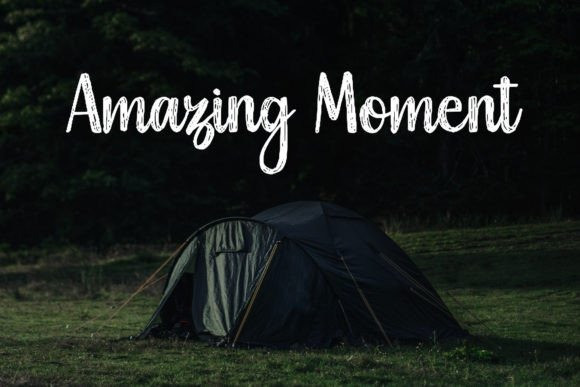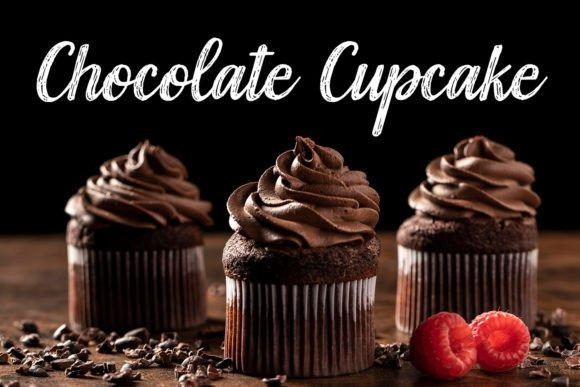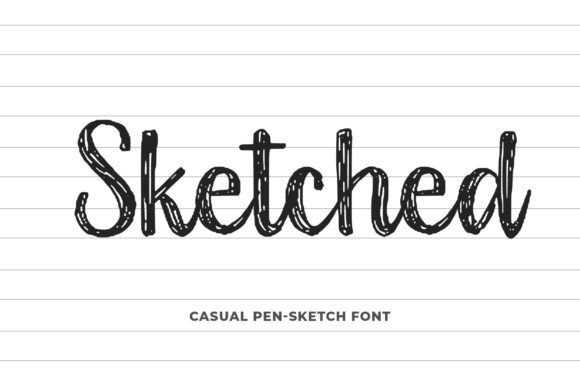
Sketched Script Font
Sketched Script Font is a beautiful pen-sketched script font. It is great for t-shirt designs, quotes, mugs, tote bag designs, cards, banners, social media, and other craft projects that need a cute but simple touch.